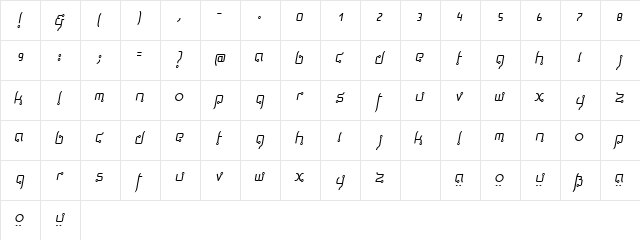
Thaiga ThinItalic
Style: ThinItalic
Design Context for Thaiga
Thaiga is a composed and adaptable typeface that performs quietly and consistently across a wide range of design contexts. The slanted form adds forward momentum and visual energy. Its slender proportions lend an understated elegance to any composition.
Pro Tip: Use Thaiga for emphasis, pull quotes, and subheadings where its slanted energy can add rhythm to the layout.